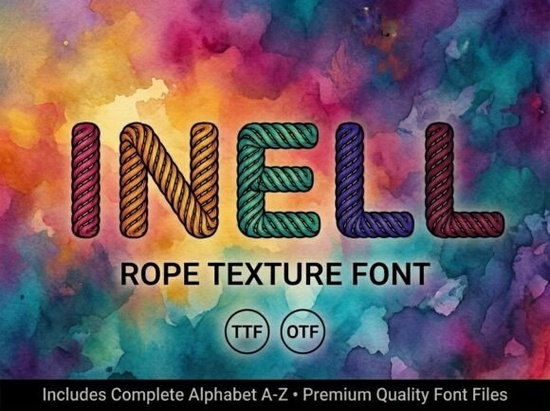
Finding the right typography for a project often feels like searching for a needle in a haystack. You need something that grabs attention immediately but still looks professional. This is where the Inell Font comes into play. It is a stunning decorative display typeface designed to be the center of attention. If you are working on bold headlines, artistic logos, or creative packaging, this tool offers a strong visual personality that helps you break away from ordinary designs.
Many creators struggle to balance uniqueness with readability. A font that is too wild becomes unreadable, while a font that is too simple gets ignored. This typeface sits in a sweet spot. It features unique artistic elements that make every letter look like a small piece of art. However, it maintains a polished finish suitable for professional work. Whether you are a print-on-demand seller looking for shirt designs or a small business owner creating a brand identity, this style provides the impact you need without sacrificing quality.
What Makes This Typeface Stand Out?
The core appeal of this design lies in its decorative nature. Unlike standard body text fonts, this is built for display purposes. This means it is intended to be used at larger sizes where the details can be appreciated. The strokes are crafted to draw the eye, making it perfect for situations where you only have a few seconds to make an impression.
When you compare it to other options in the display category, you will notice distinct differences. For example, styles like Illon might offer a different flavor of decoration, but this specific typeface focuses on high-impact visuals. It is not meant for long paragraphs of text. Instead, it shines when used for titles, initial caps, or short phrases that need to pop off the page or screen.
Is an All-Caps Font Right for Your Project?
There is one critical detail you must know before downloading. This font is an ALL-CAPS display typeface. It does not include lowercase letters. For some designers, this might seem like a limitation, but it is actually a specific design choice. Uppercase-only fonts often convey strength, authority, and modernity.
Because every letter is capitalized, the baseline remains consistent, which helps in creating balanced logos. If you are designing a monogram or a badge, this uniformity is incredibly useful. However, if your project requires sentence case or a friendly, handwritten feel, you might want to look at other options. Fonts like Child Humble might offer a softer approach if you need something that feels more playful or informal.
Using an all-caps font requires a bit of strategy. You should pair it with a simple sans-serif font for any body text. This creates contrast and ensures that the important information remains easy to read while the headline does the heavy lifting visually. This combination is a standard practice in modern graphic design and works well for posters, social media graphics, and product labels.
Where Can You Use This Style?
Versatility is key when investing in new design assets. This typeface is versatile enough for various applications while maintaining its professional look. Here are a few common use cases where this font excels:
- Logo Design: The unique shapes make for memorable brand marks.
- Packaging: It stands out on shelves against competitors.
- Headlines: Perfect for blog headers or magazine titles.
- Merchandise: Great for t-shirts, mugs, and tote bags.
If you are exploring different vibes for your brand, you might also consider checking out Imray. It offers another perspective on display typography that could complement this style in a larger brand kit. Having a selection of display fonts allows you to adapt your visual identity for different campaigns without losing coherence.